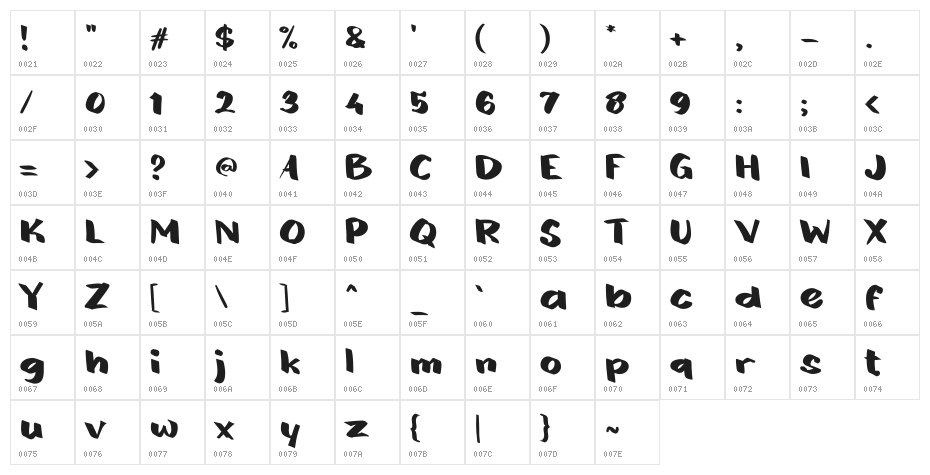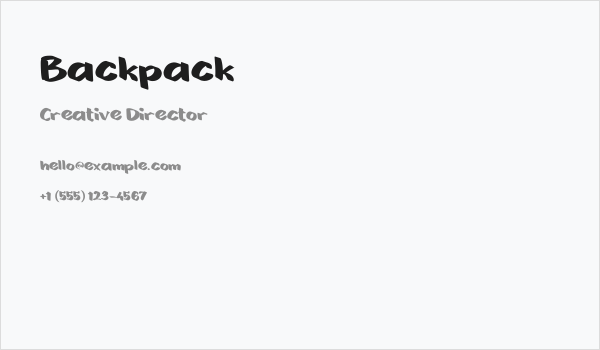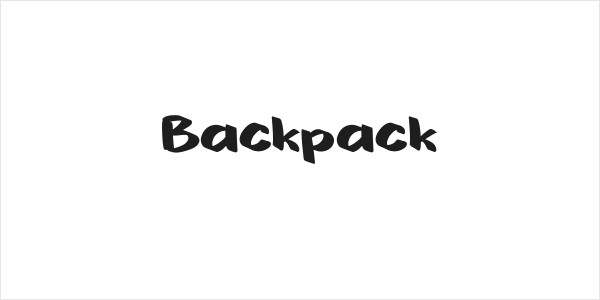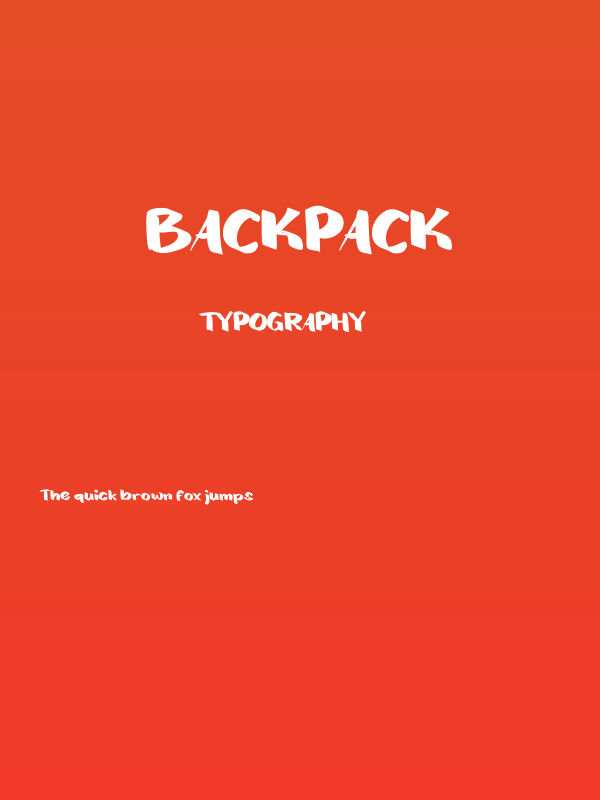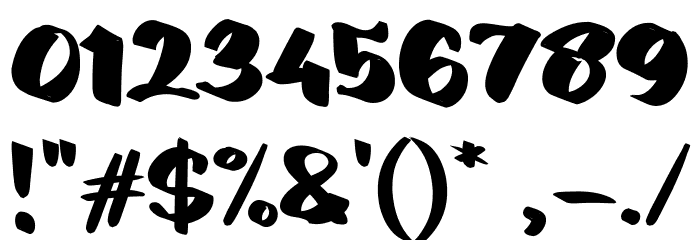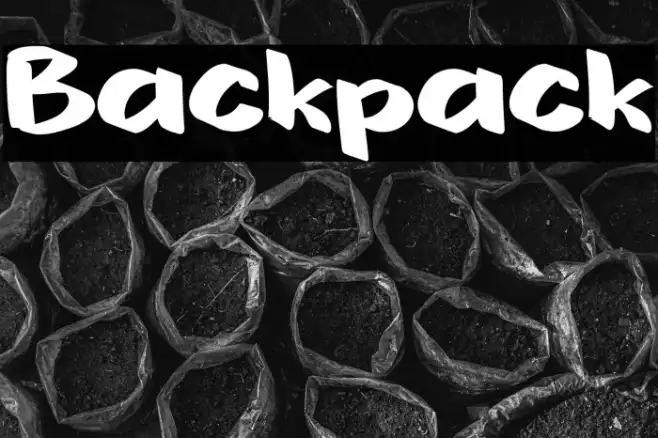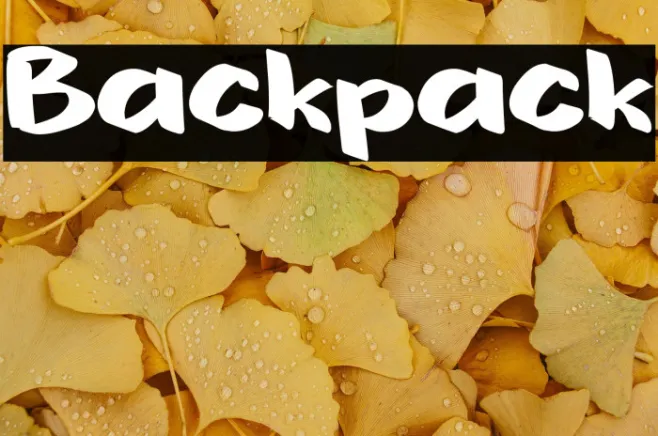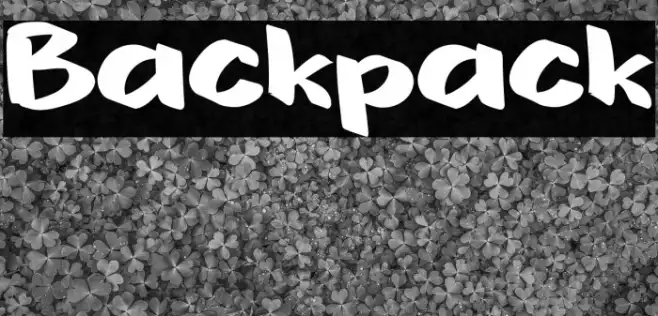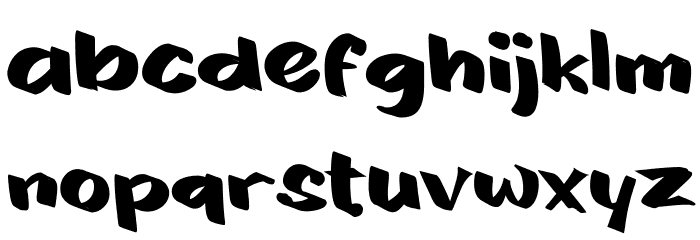
Backpack Font
Backpack Description
This font features a bold, energetic style with a hand-drawn appearance. The characters are slightly irregular, giving it a playful and dynamic feel. The strokes are thick and consistent, creating a strong visual impact. The uppercase and lowercase letters maintain a cohesive look, while the numbers and special characters complement the overall design. This font's unique style makes it stand out, perfect for projects that require a touch of creativity and boldness.
| Proposed Projects | Ideal for posters, branding, merchandise, and any creative projects that require a bold statement. |